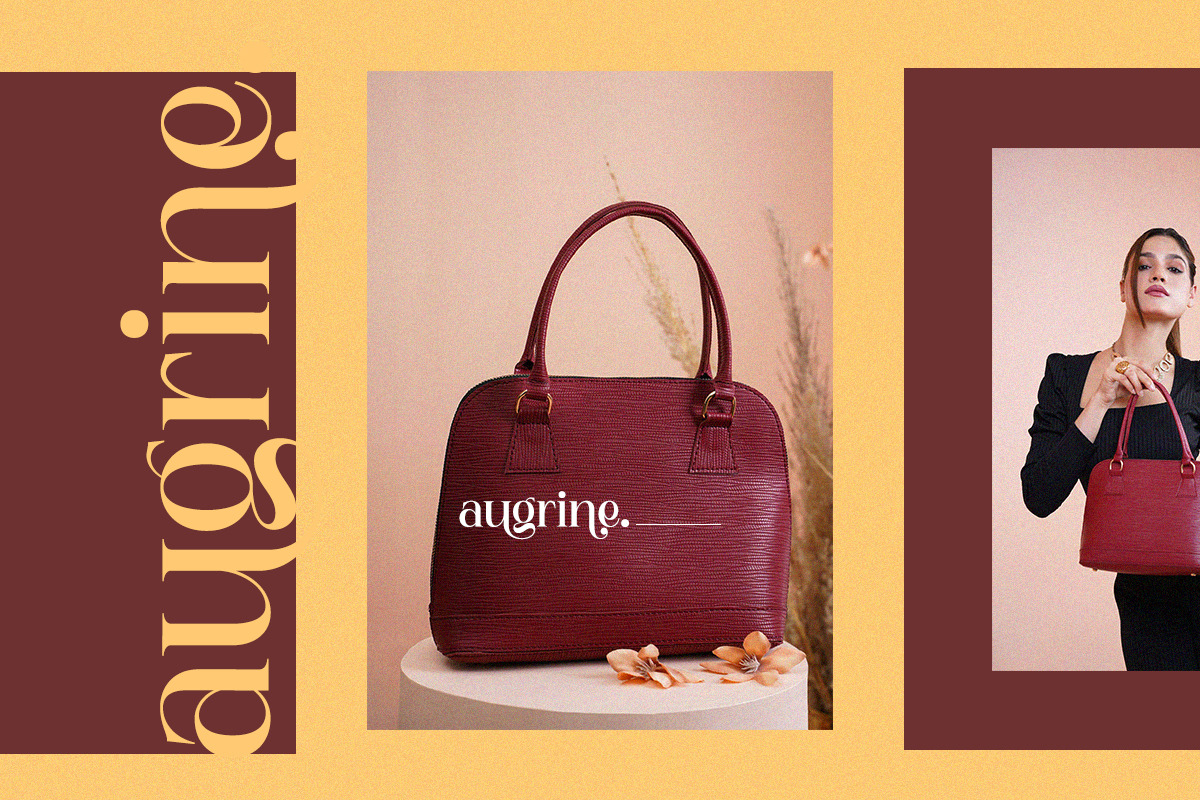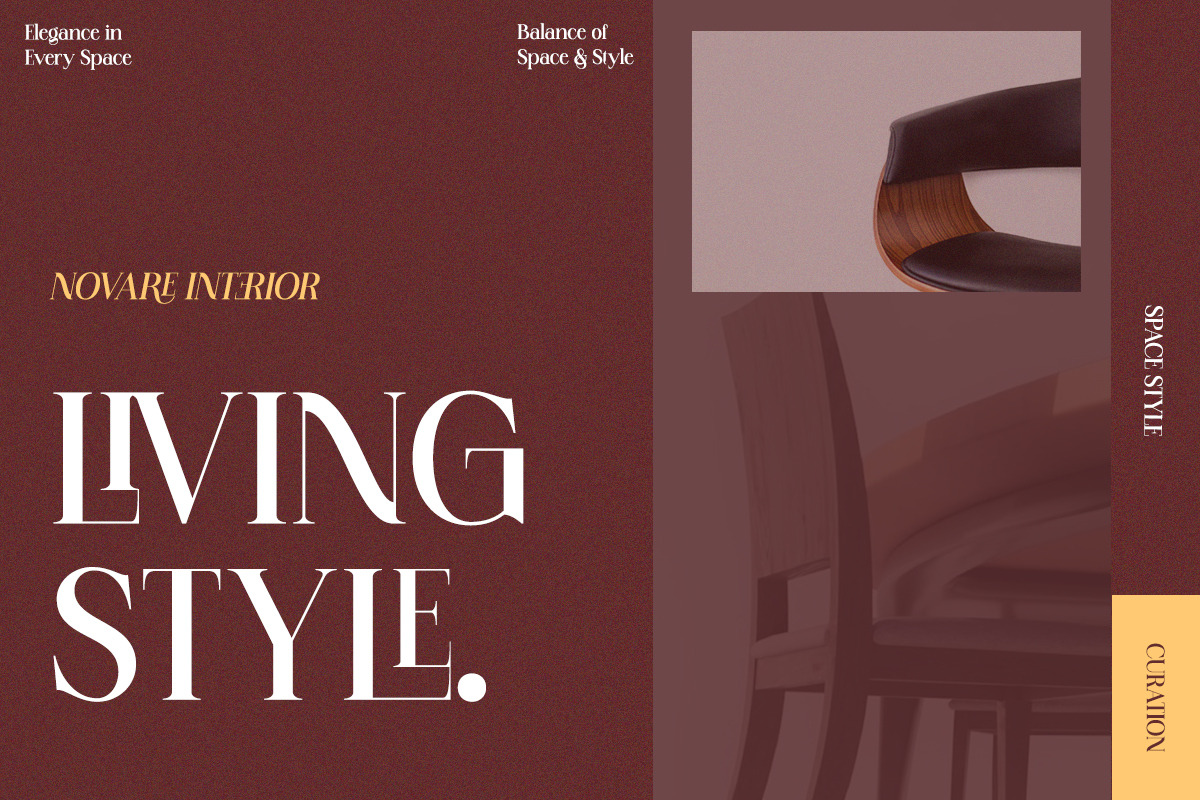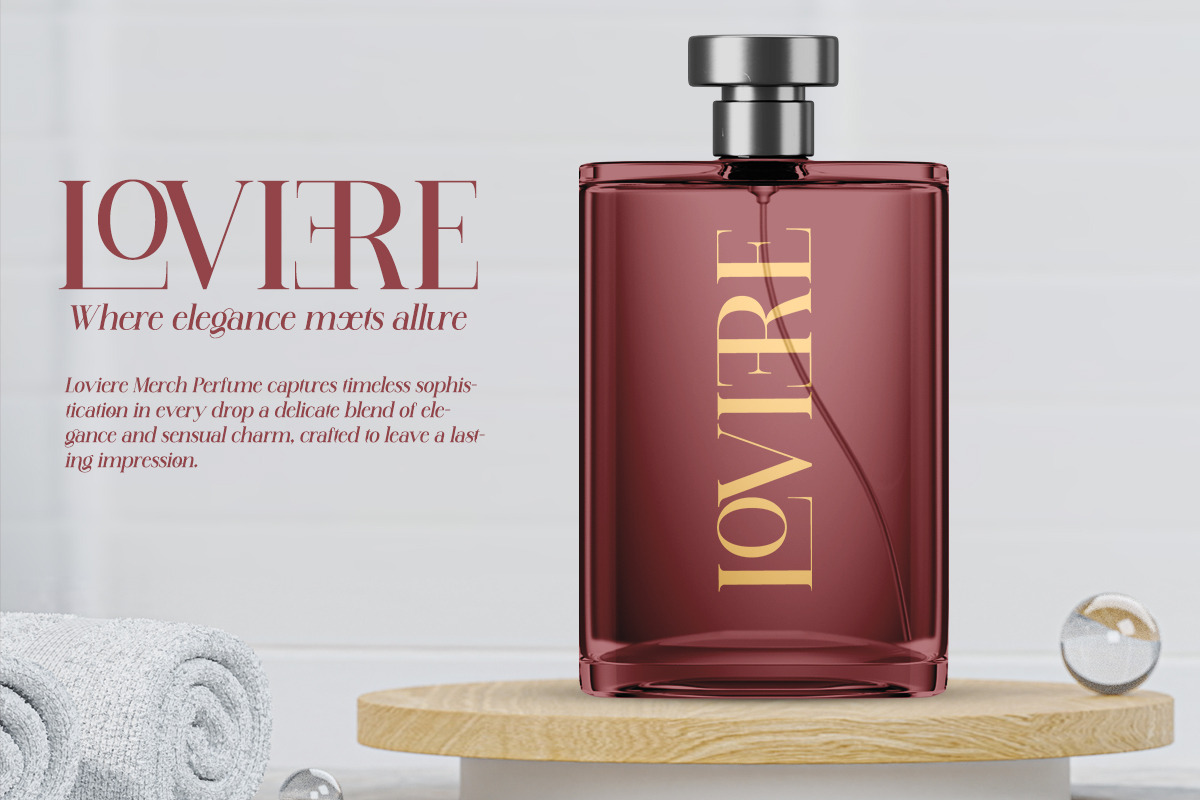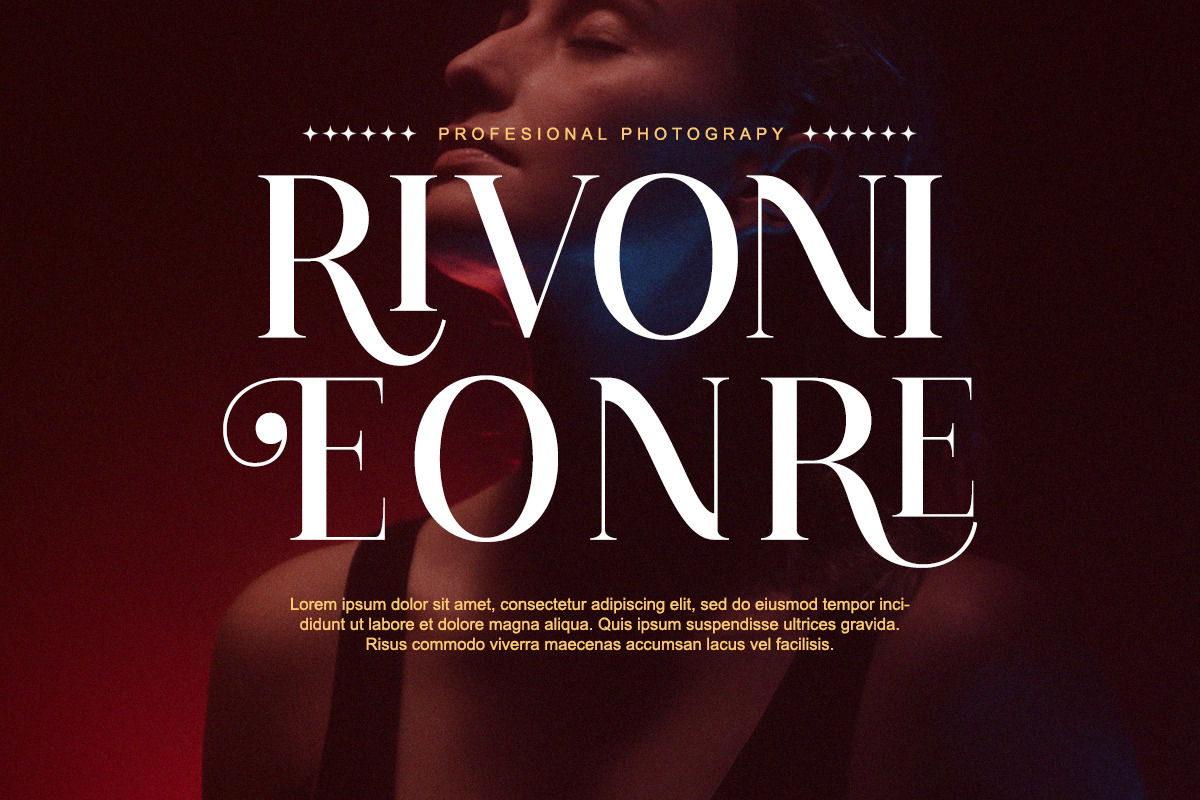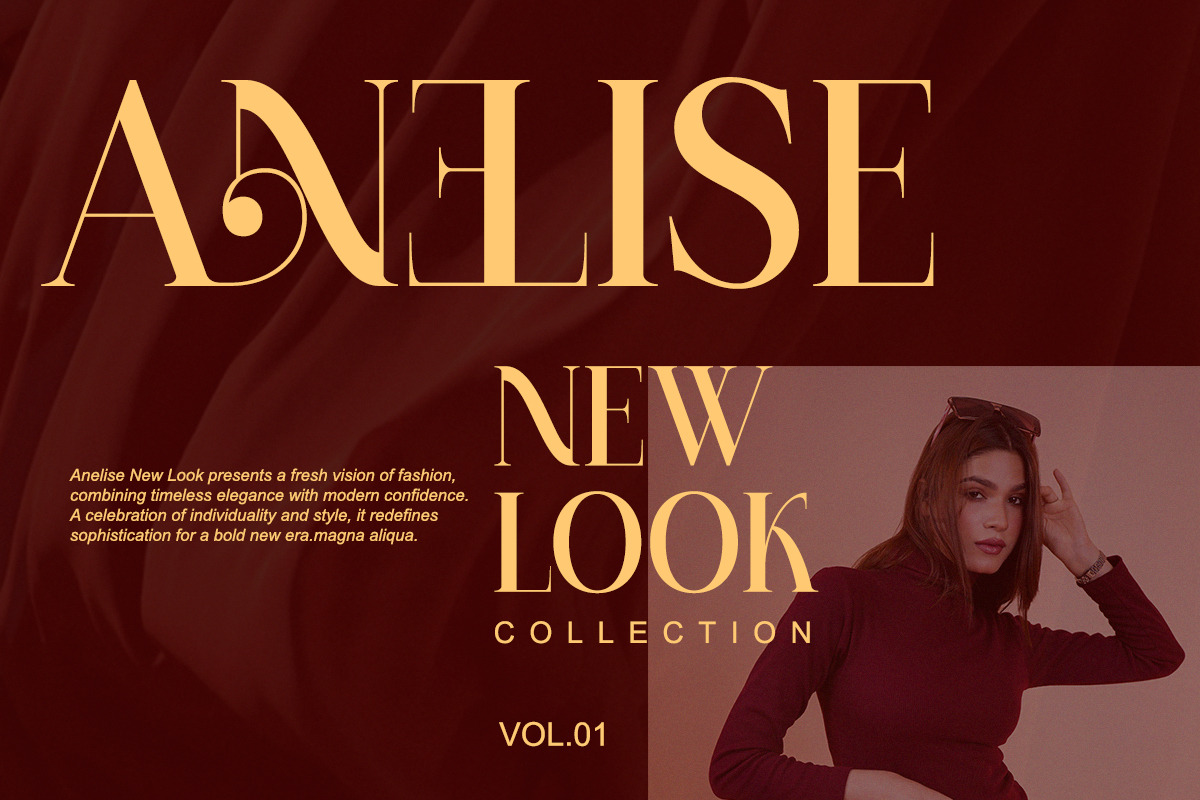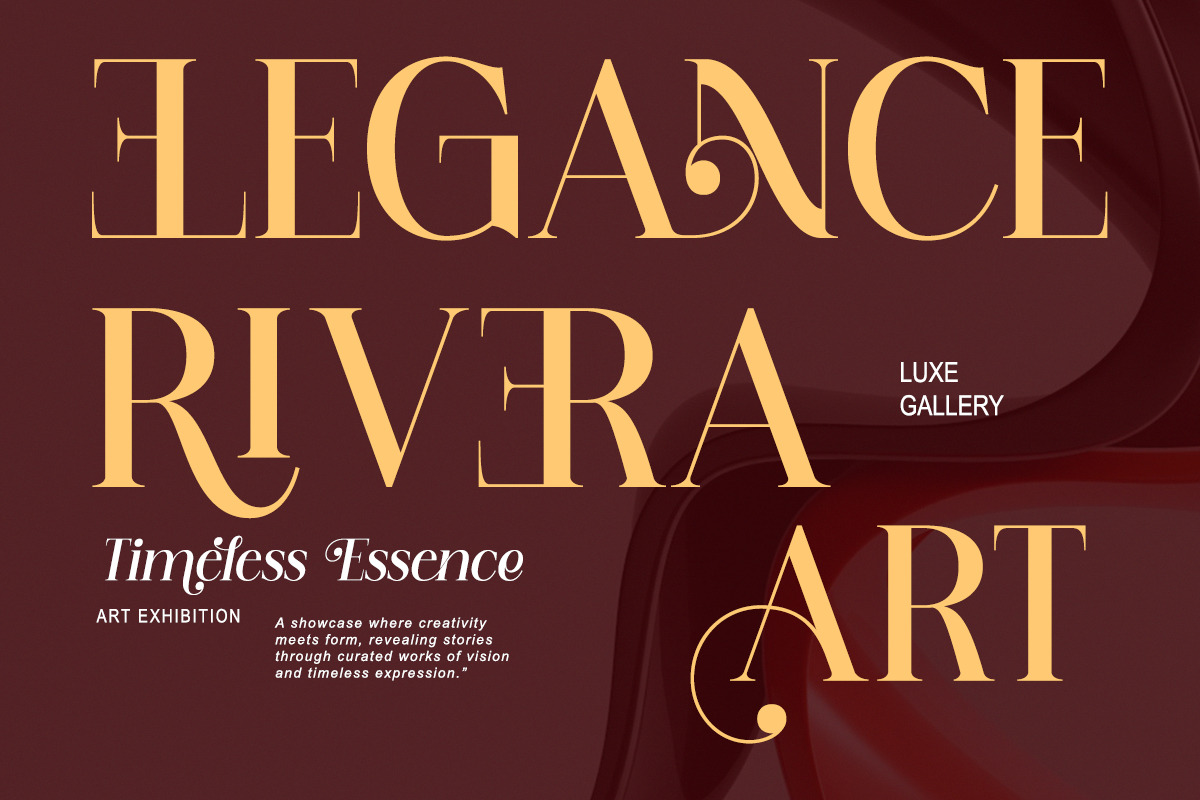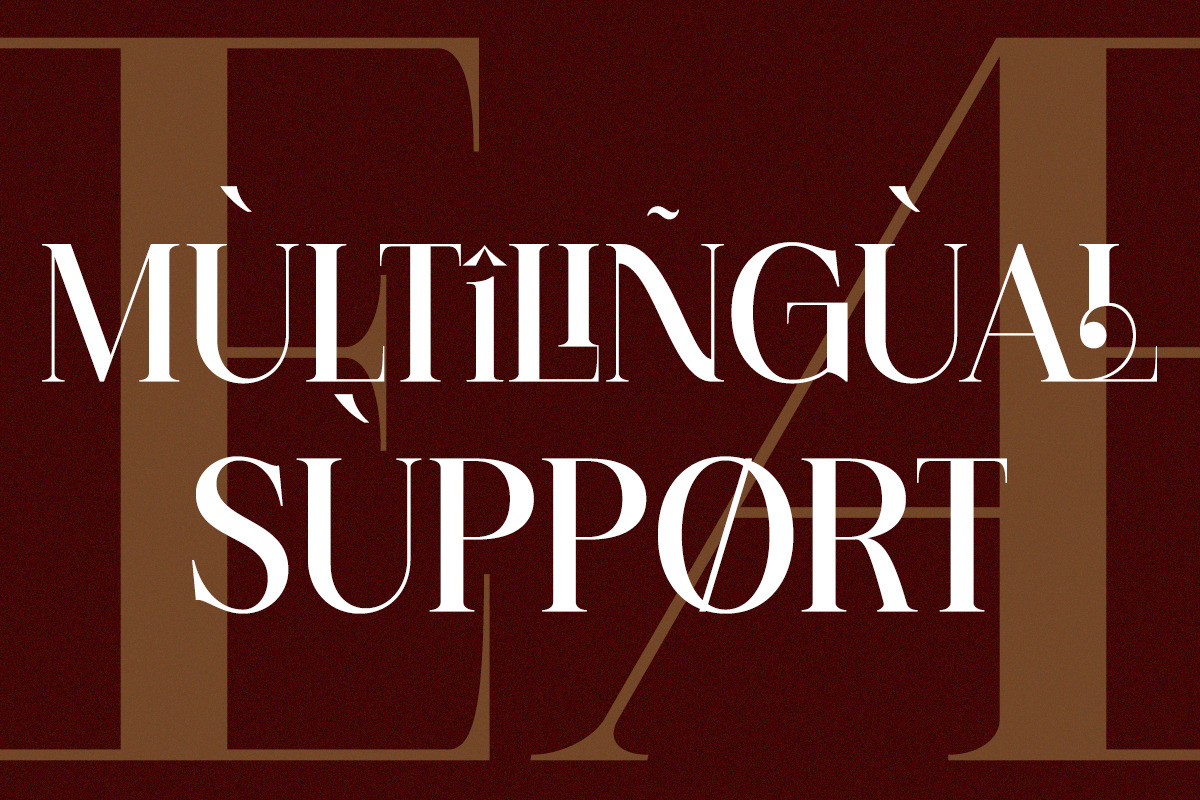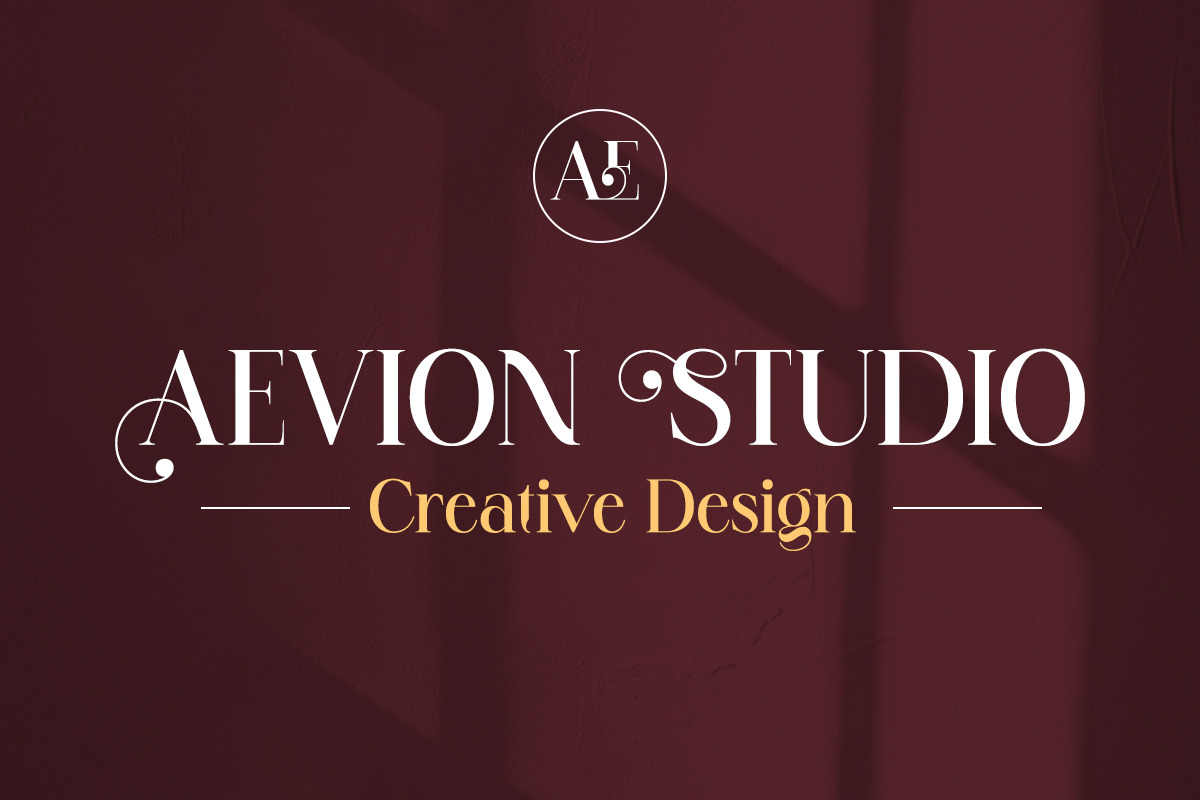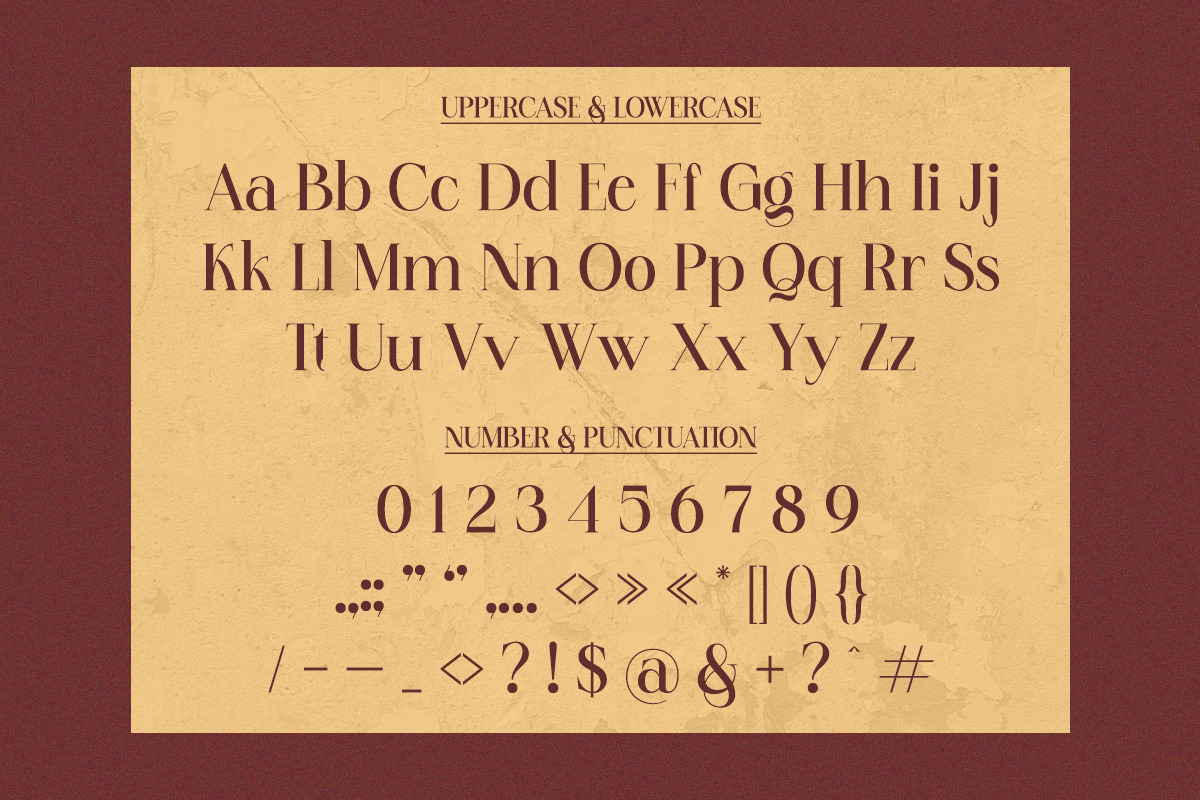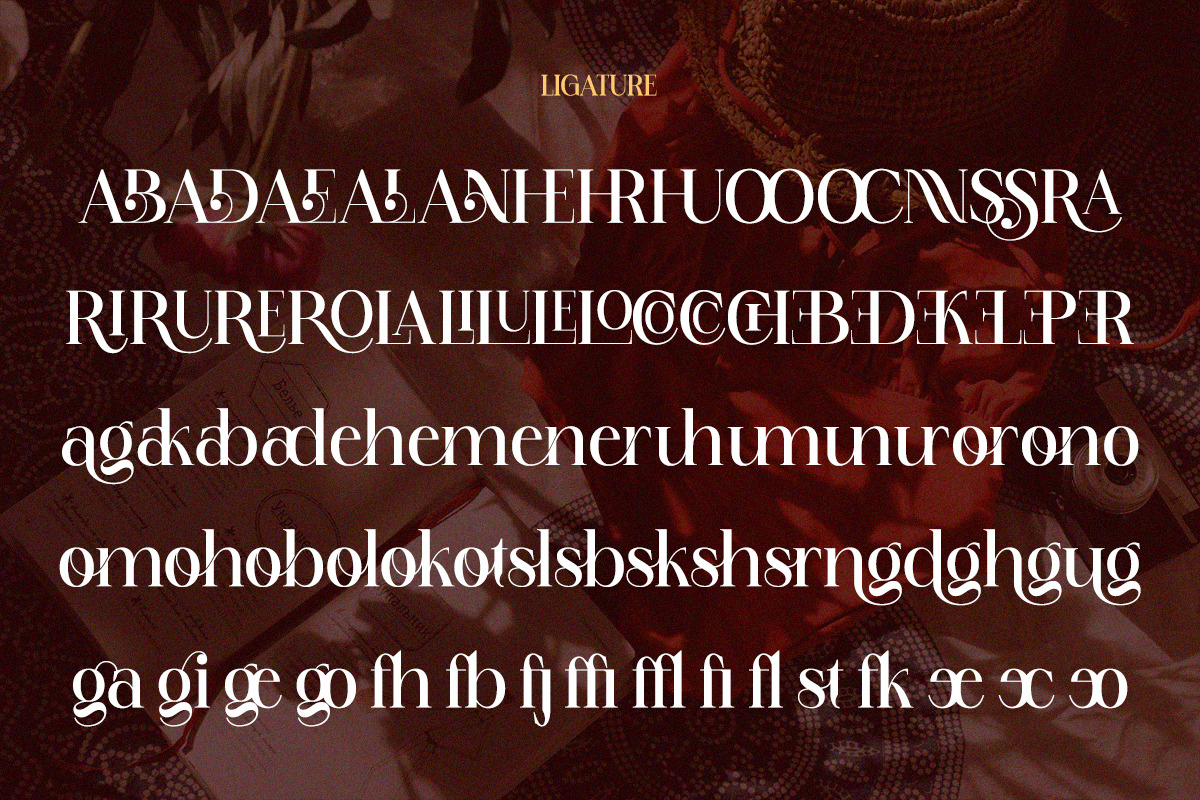
Holybirth - Modern Aesthetic Serif
Introducing Holybirth, a serif typeface that captures the perfect harmony of modern aesthetics and timeless elegance. Its fine balance of sharp serifs and soft strokes makes it ideal for fashion branding, wedding design, editorial layouts, and luxury packaging. Each curve and ligature is carefully crafted to evoke warmth and refinement.
- Regular & Italic
Perfect For: Fashion branding, logo design, social media templates, wedding invitations, luxury product packaging, and editorial content.